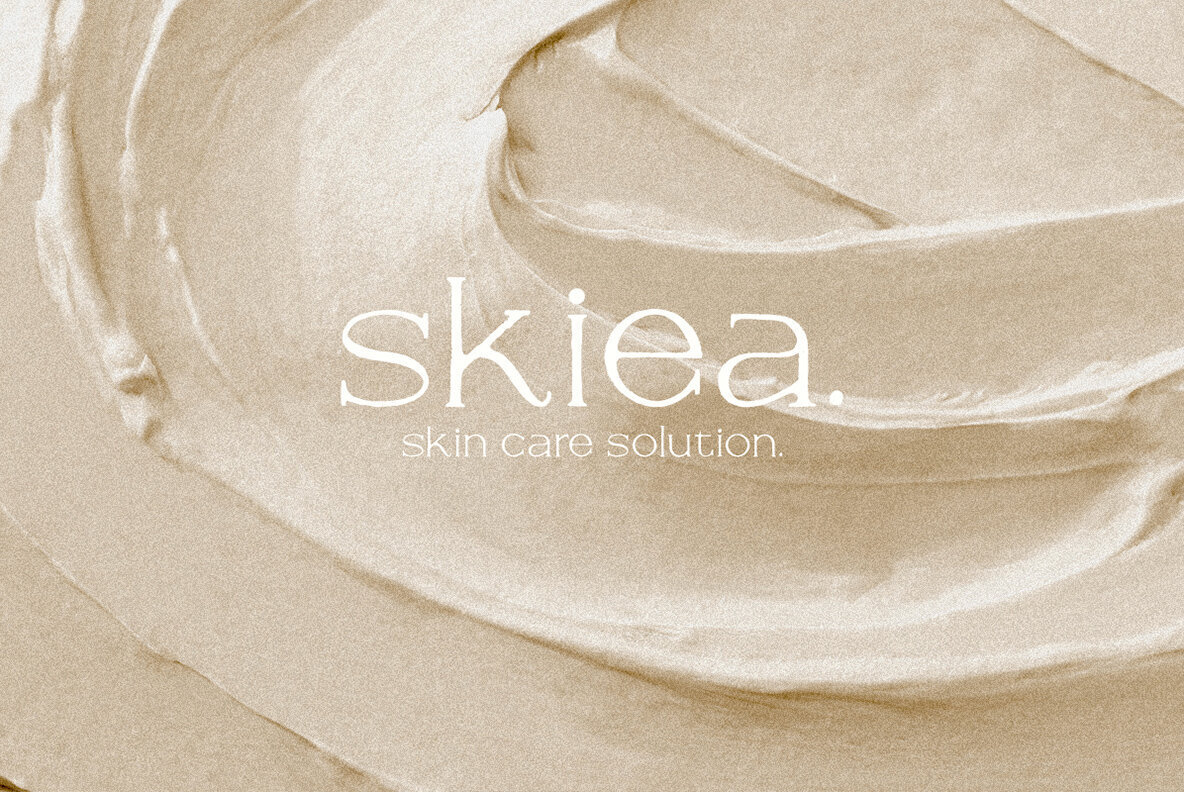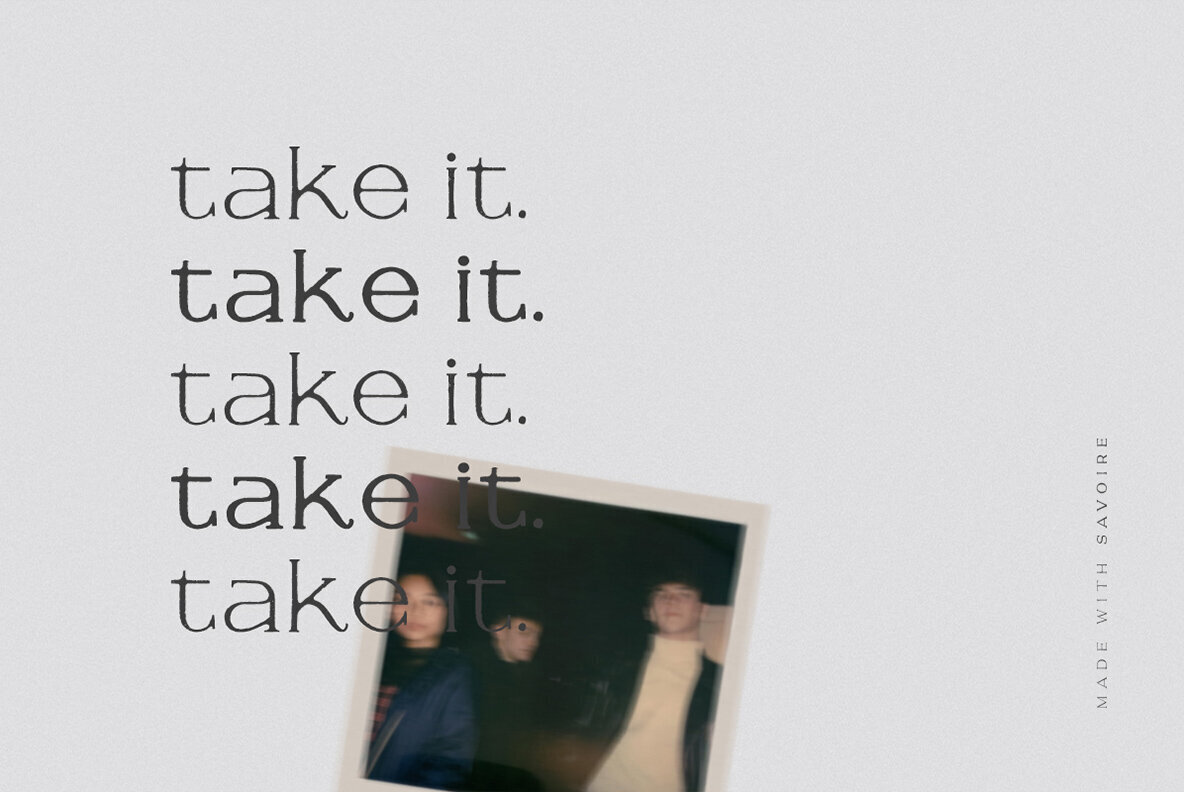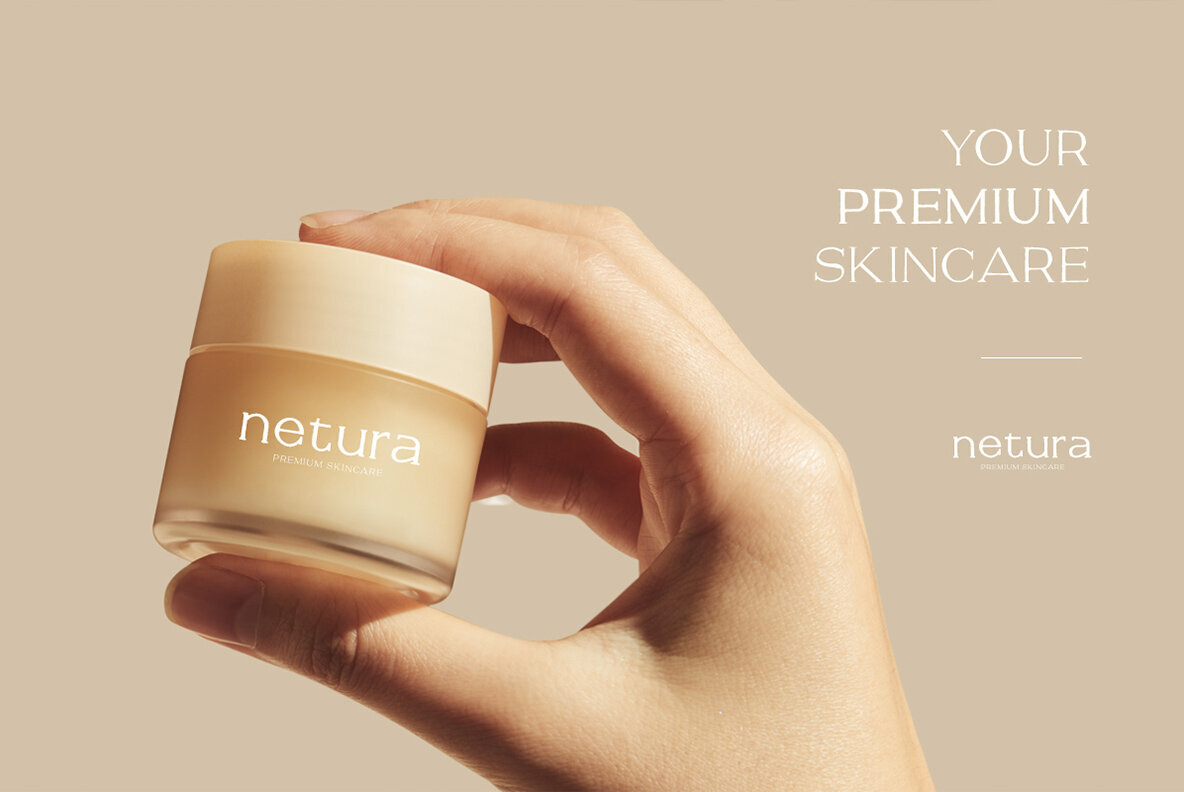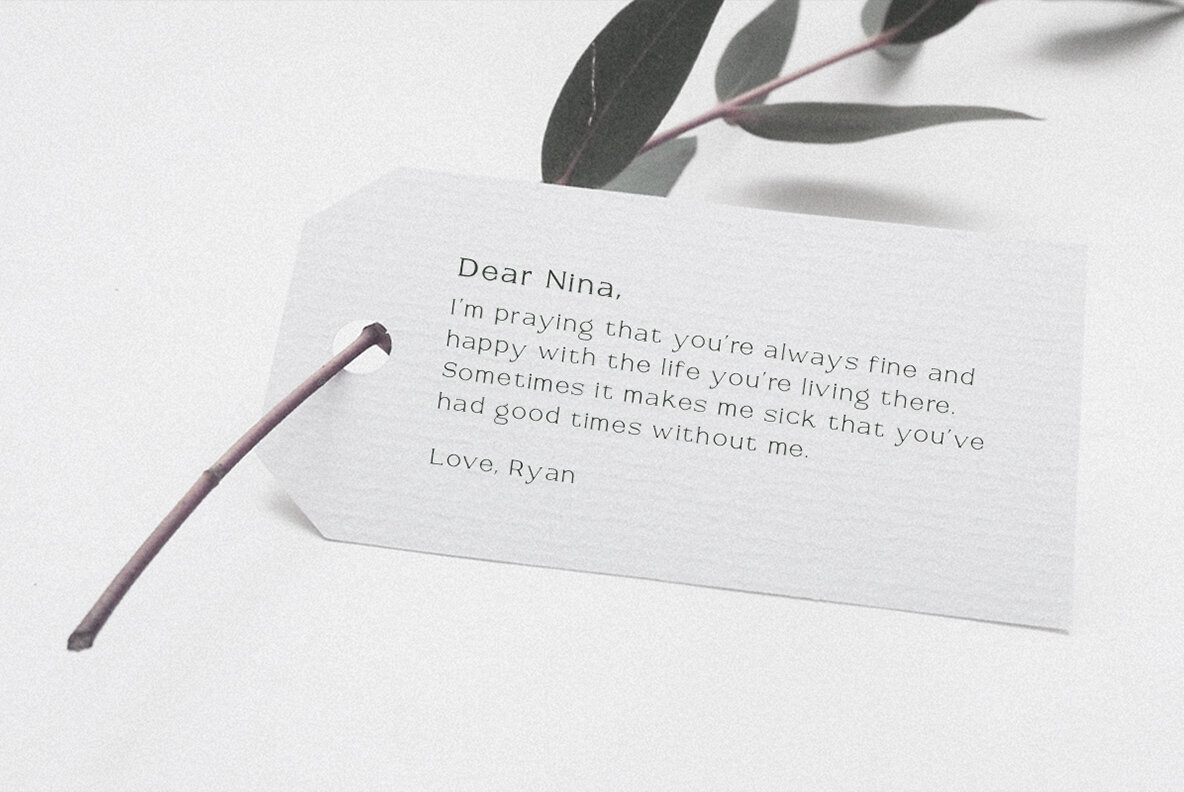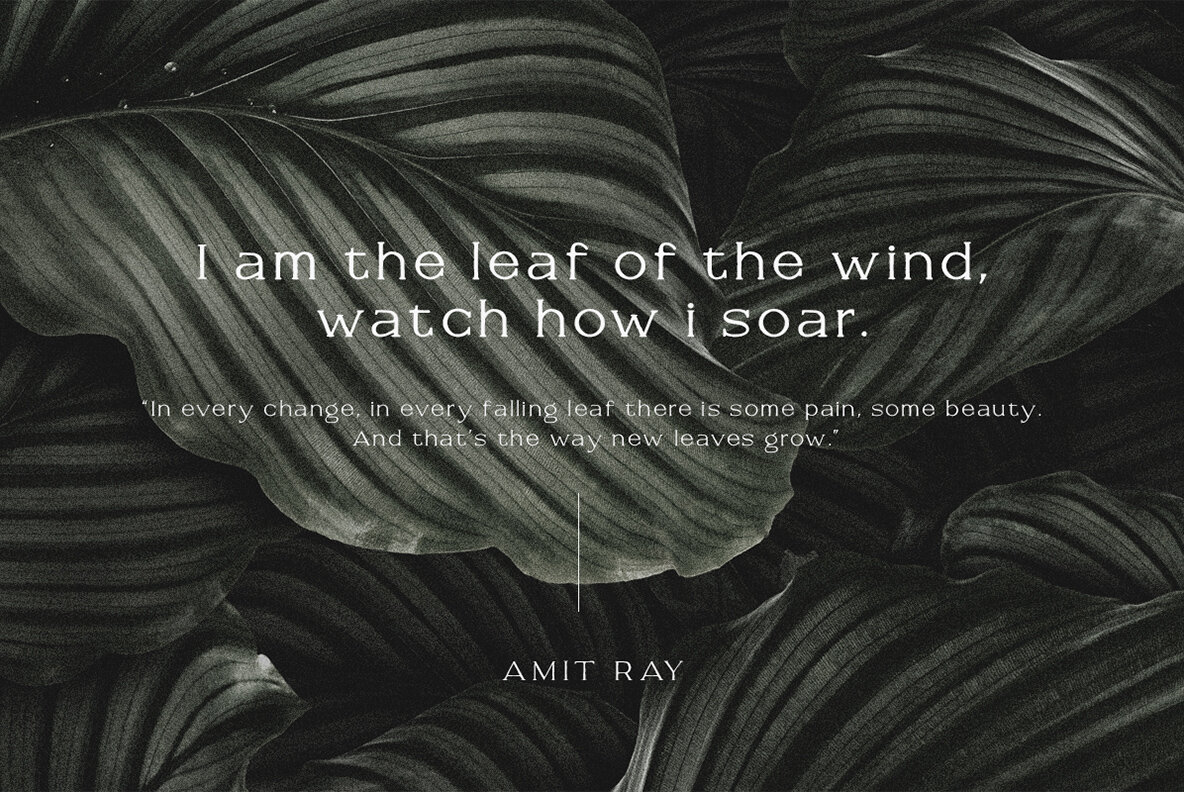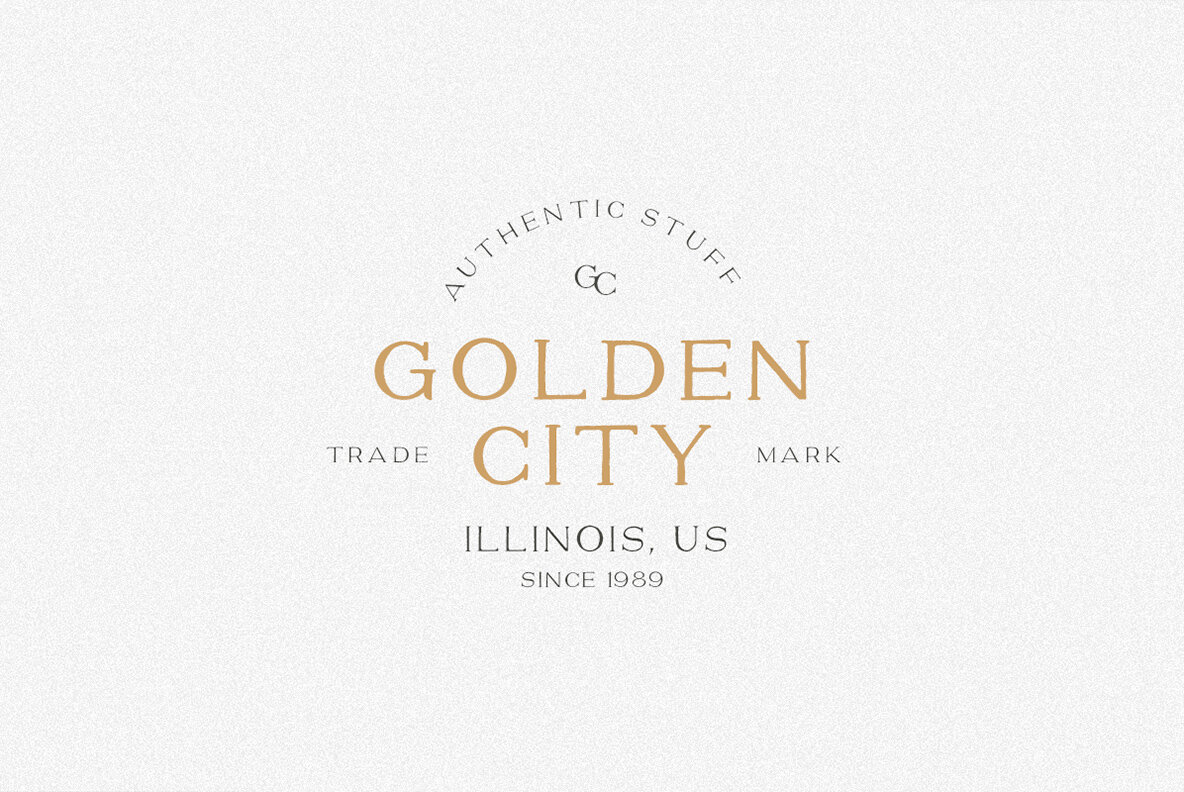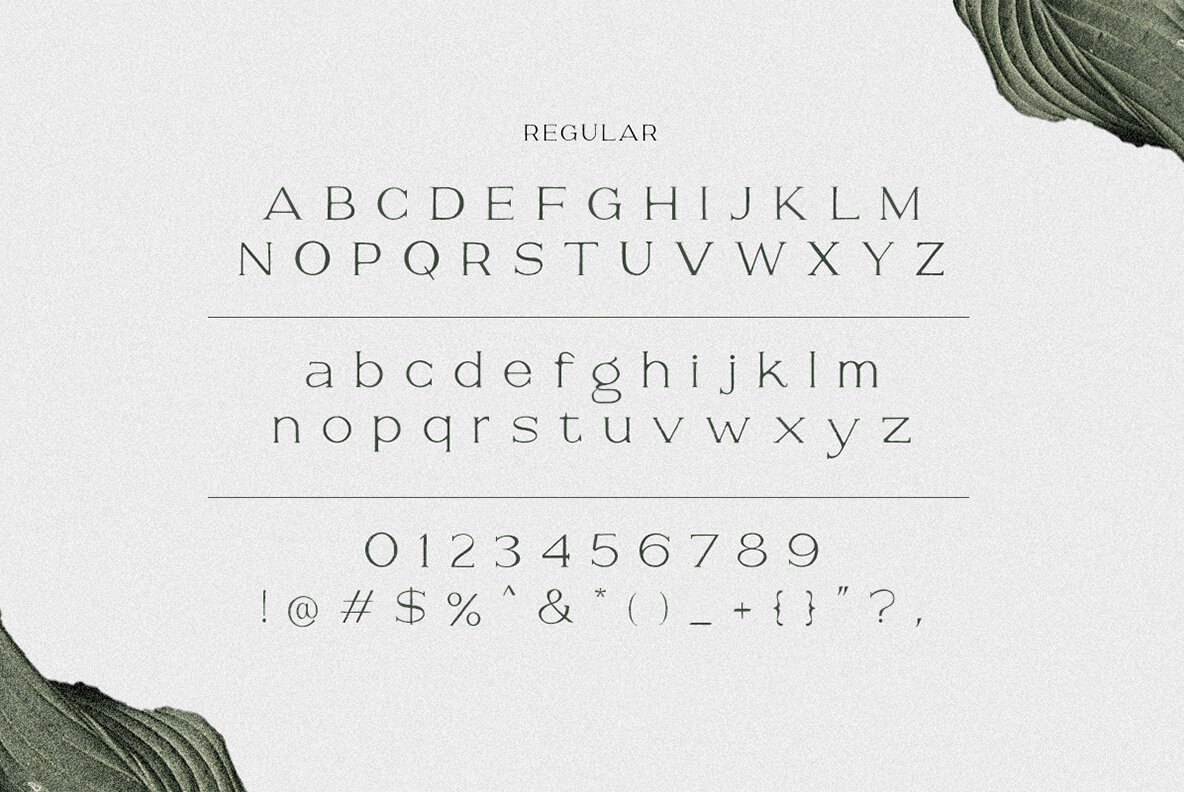
Savoire Font
Savoire is a hand lettered serif that have a handmade vibes. You can use this font for any project especially for design that require handmade and organic feels. This font also comes with Regular and Bold that you can use both to highlight the point. This font already support multi language.